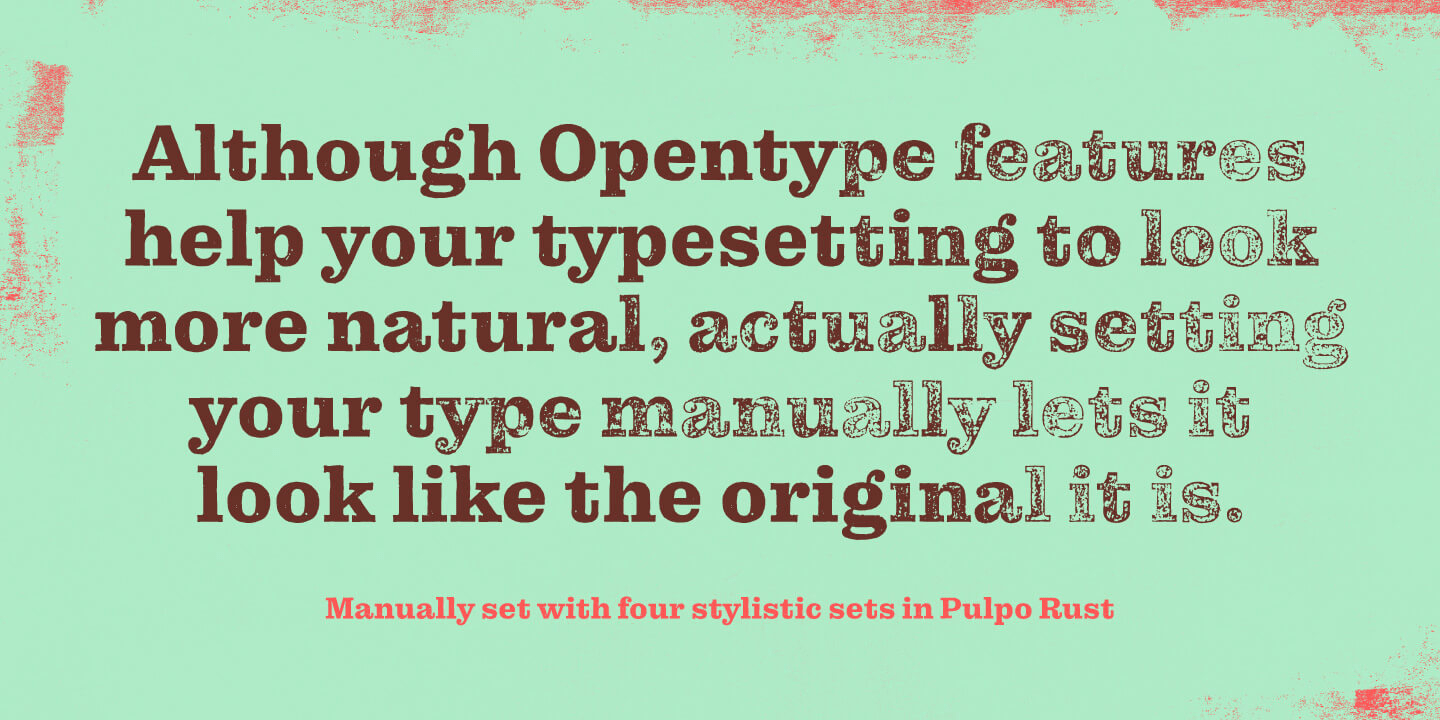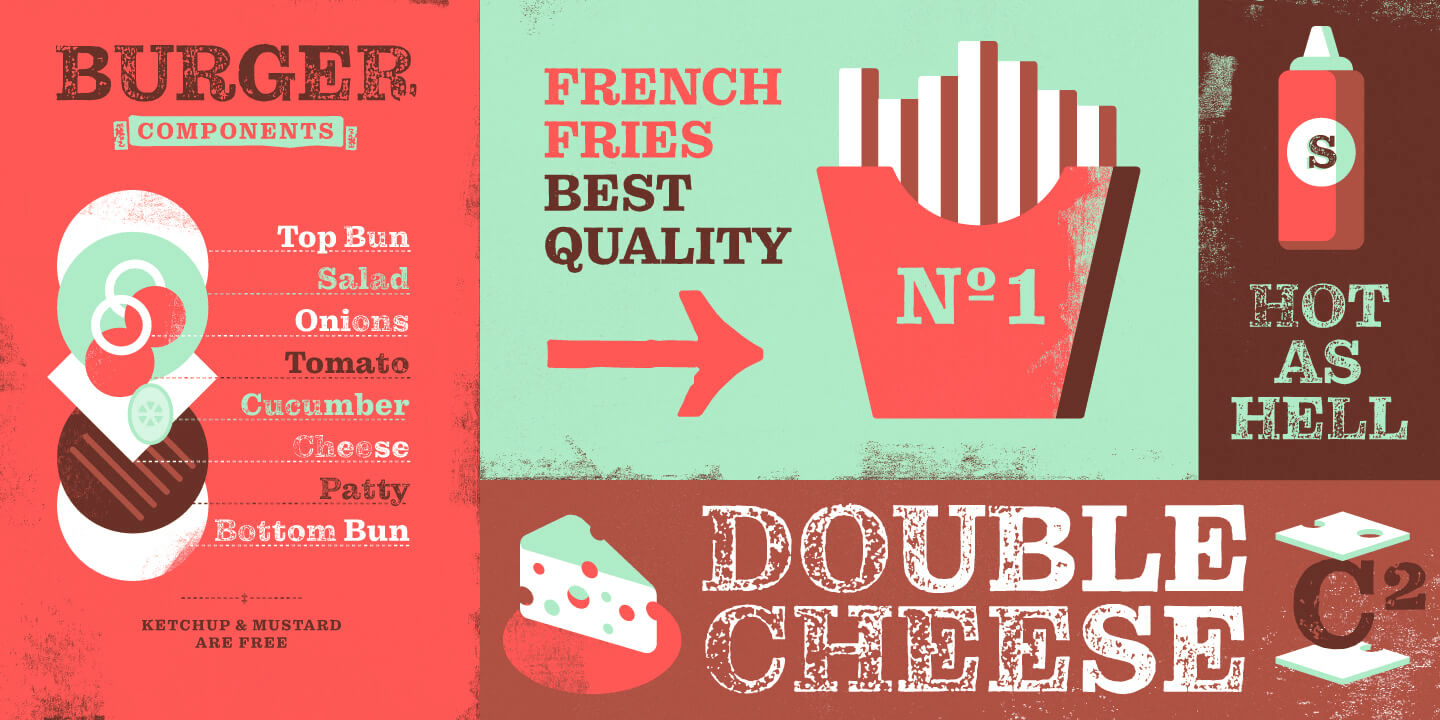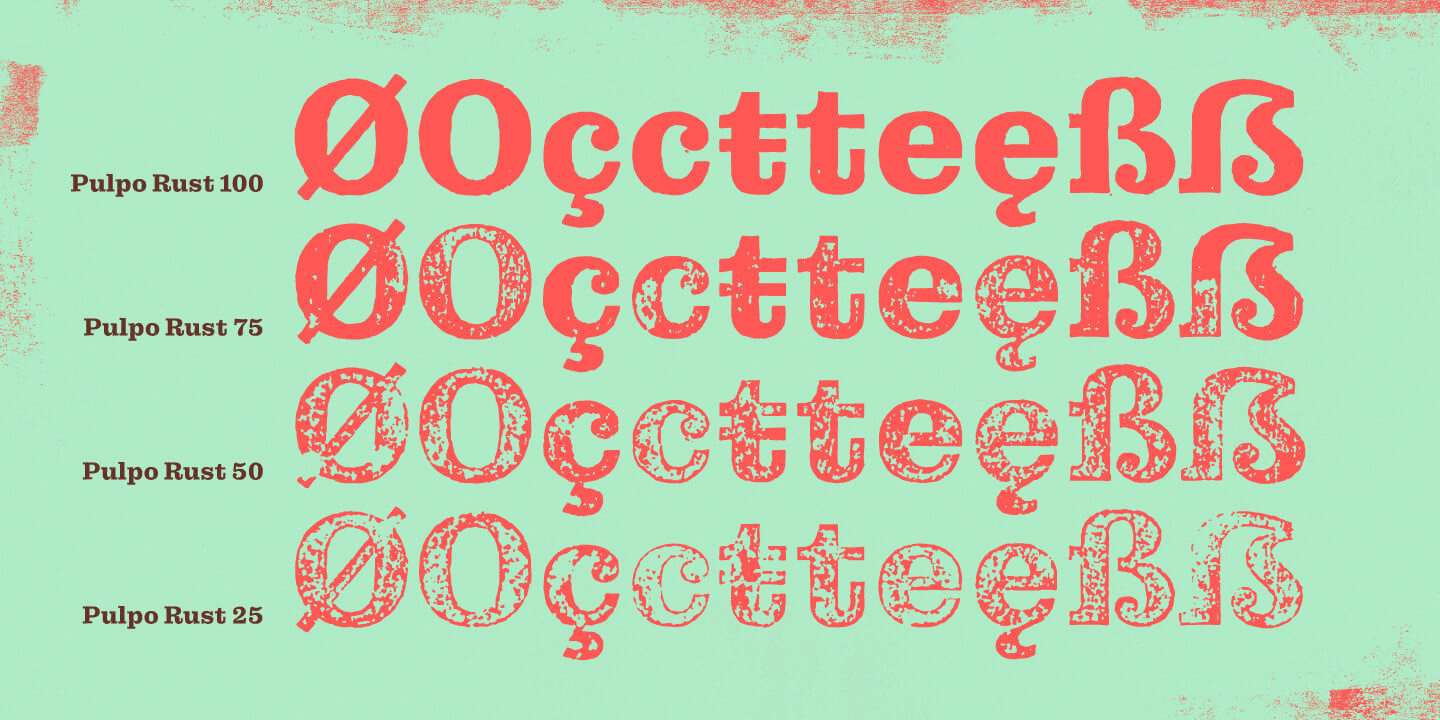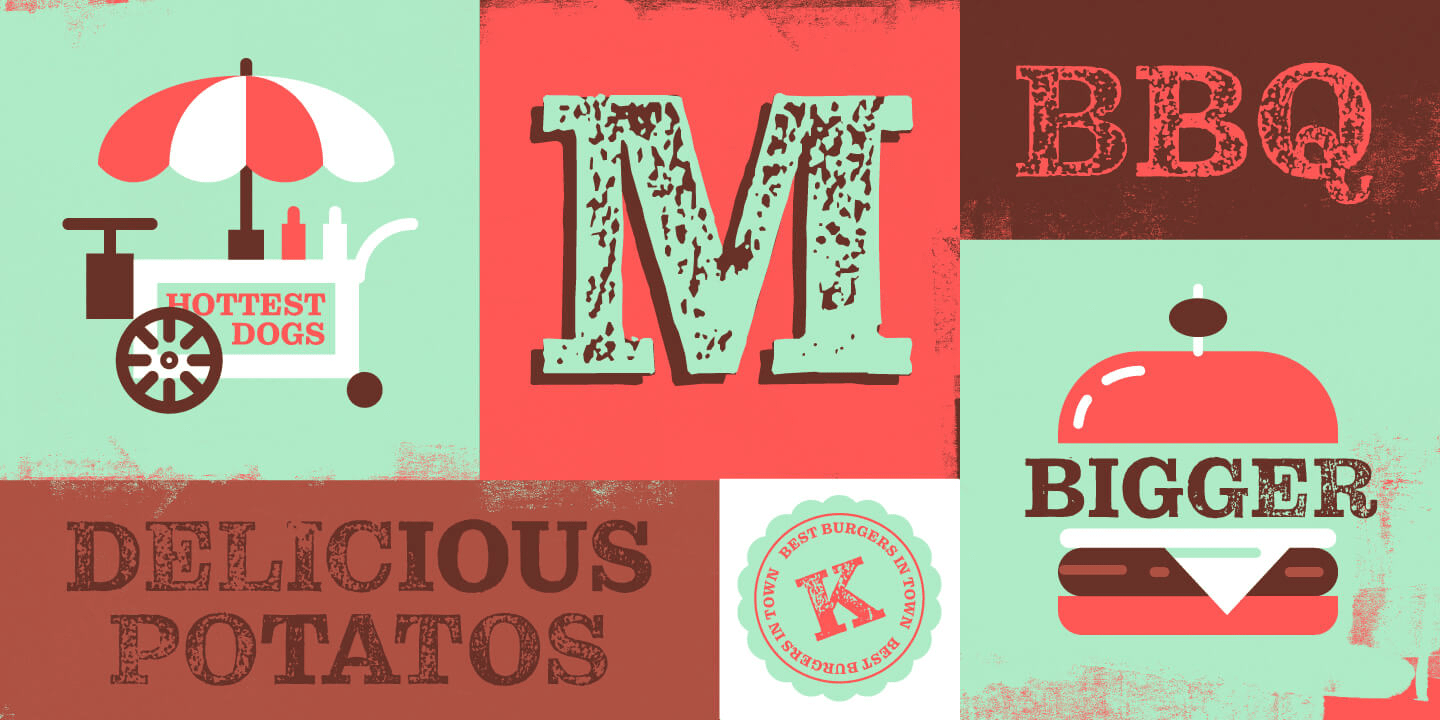
About Pulpo Rust
Pulpo Rust digitally simulates a handmade wood print, but is less time consuming to produce and easier to correct. As the warmth of hand-printed materials has become an indicator of quality and good taste, Pulpo Rust is very useful for advertising, packaging,…